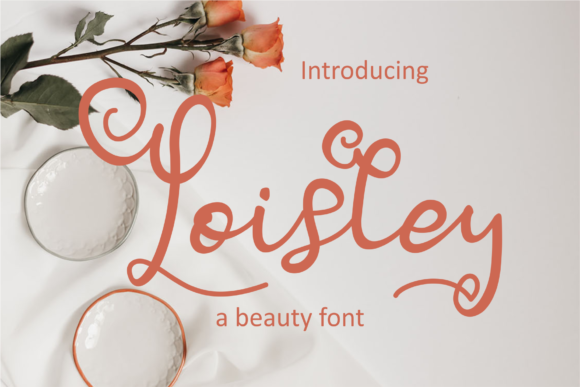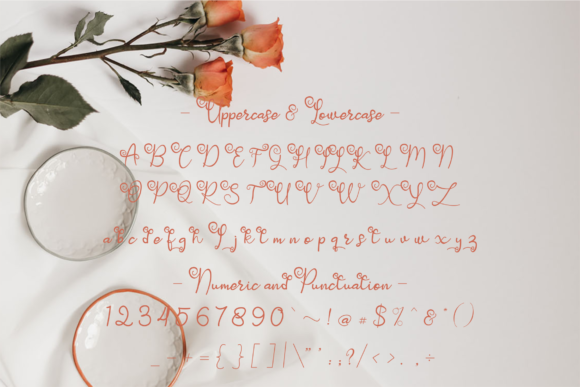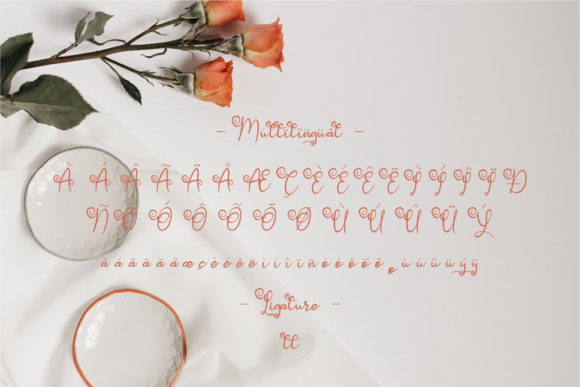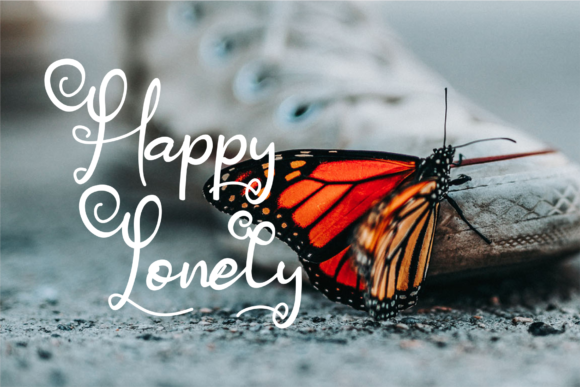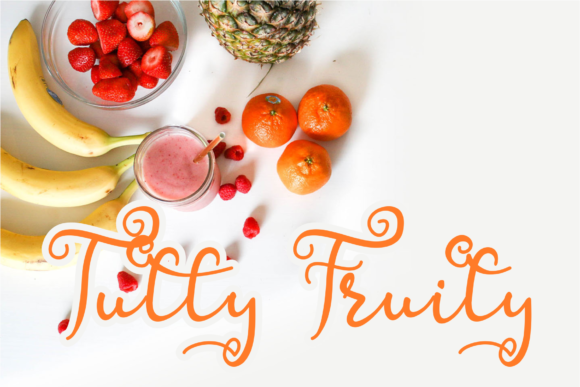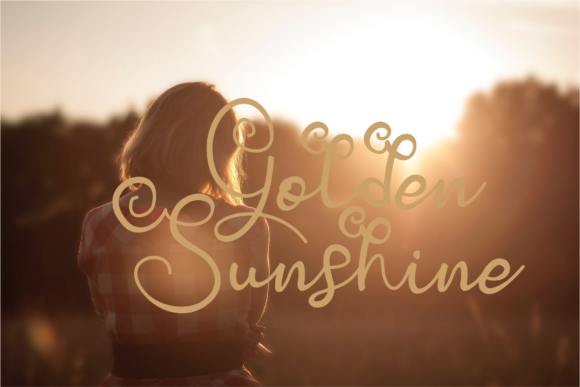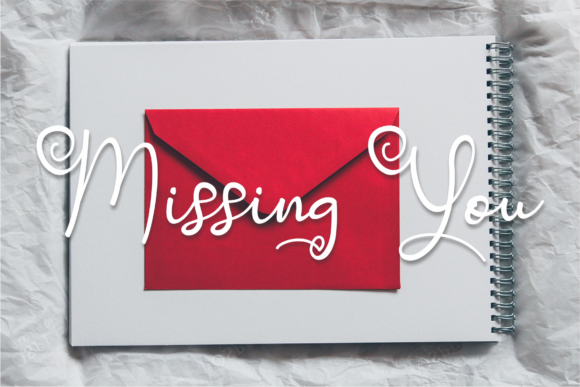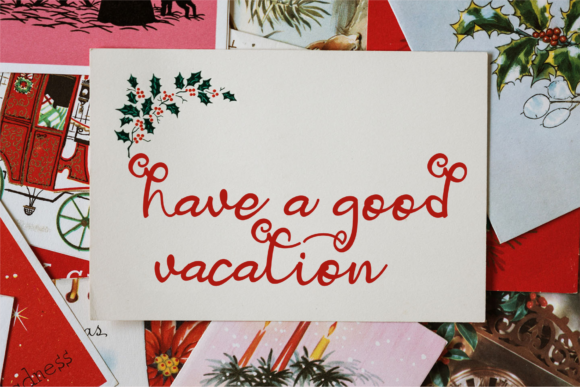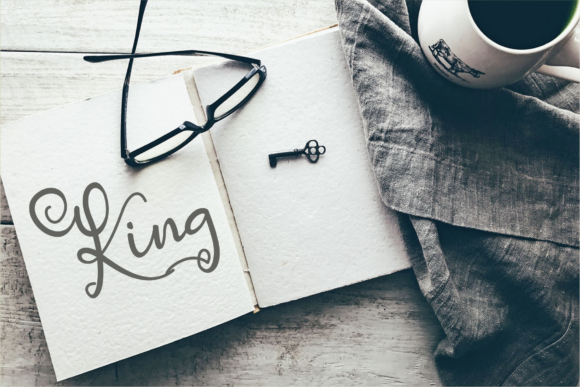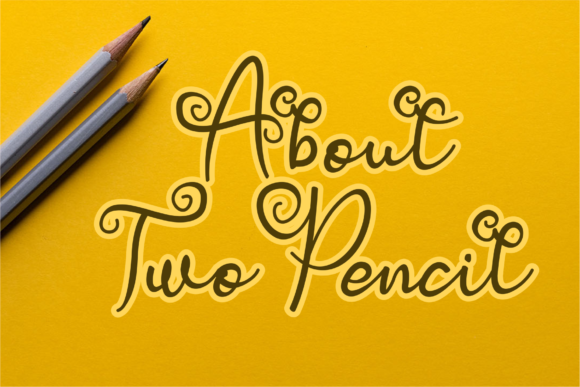
Loisley Font
About Loisley Font
Loisley is a romantic handwritten font, sending out an incredibly fresh and positive vibe. It features gorgeous swashes and ligatures that make this script very versatile. Fall in love with Loisley and add it to your list of favorite fonts!